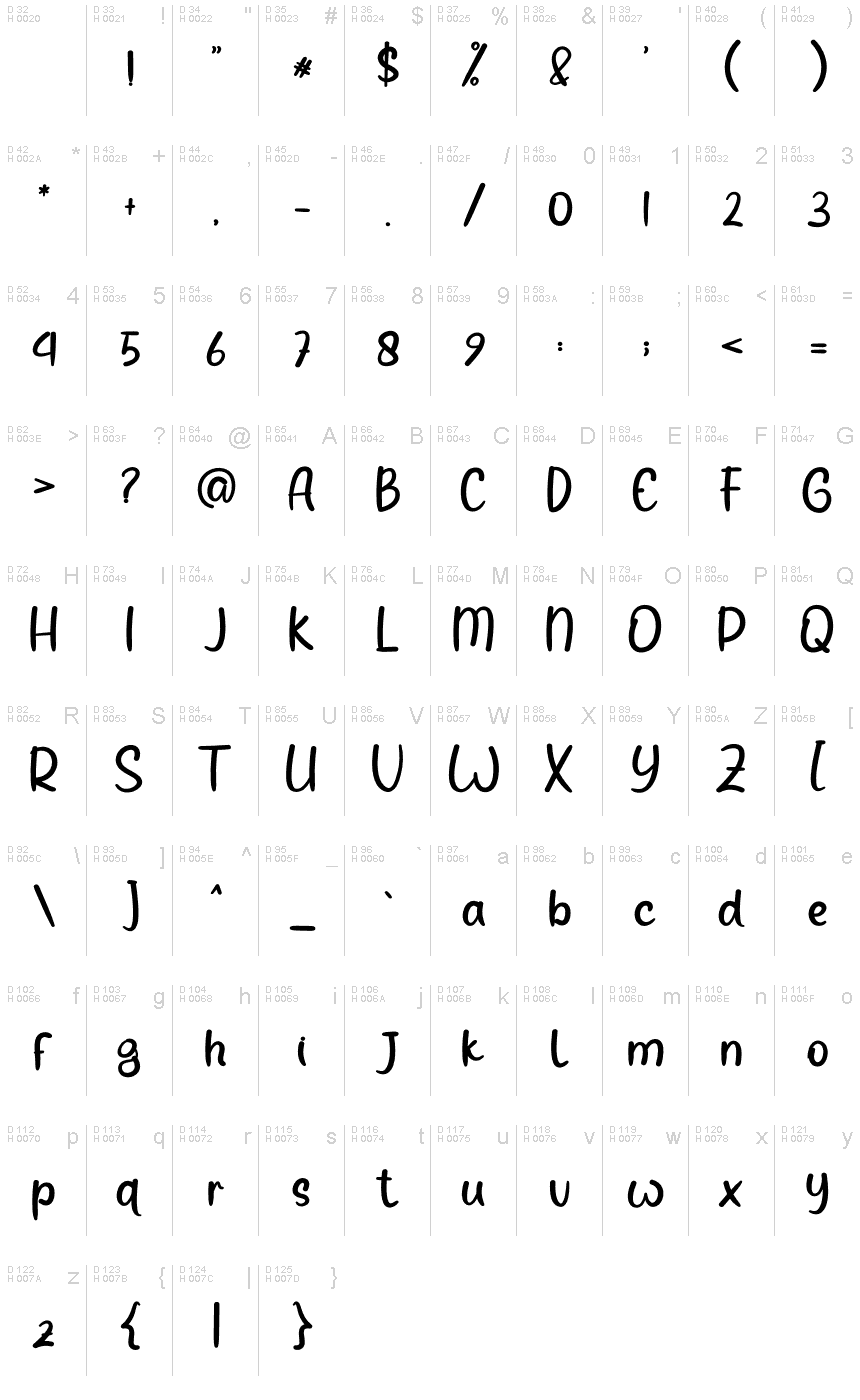
Blue
Blue, designed by Etik Fatimah, is a handwritten font that exudes charm and personality. Its fluid curves and natural variation in stroke thickness convey a sense of authenticity, reminiscent of elegant cursive writing. The effortless grace of Blue's letterforms suggests a casual yet sophisticated vibe, making it an excellent choice for designs seeking to add a personal touch.
With its handwritten style, Blue bridges the gap between traditional penmanship and modern flair. It has the versatility to enhance various creative projects such as invitations, branding materials, social media graphics, and any project needing a human touch. Whether you're looking to invoke nostalgia or forge a connection with your audience through approachable elegance, Blue stands out as an aesthetically pleasing choice that can adapt beautifully to your design needs.